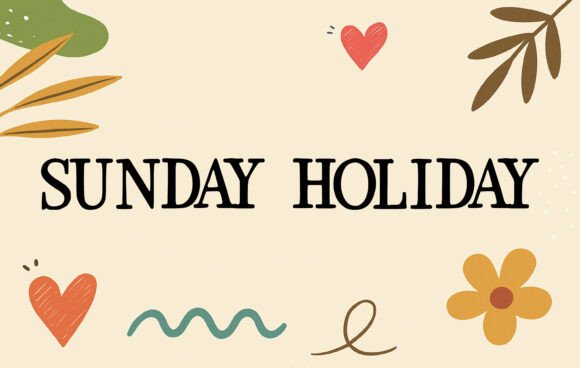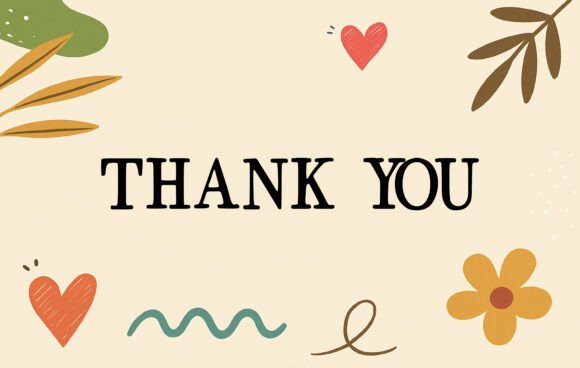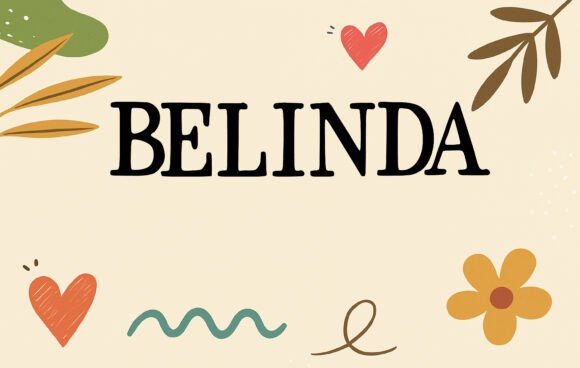
Introducing Belinda Font: Elevate Your Creative Projects with Elegance and Versatility
In the world of typography, a font can make or break a design. It’s the foundation upon which your creative ideas are built, and the right choice can elevate your project from good to exceptional. This is where Belinda Font comes into play, a meticulously crafted typeface designed to be a true favorite among designers, crafters, and anyone looking to add a touch of elegance and professionalism to their work.
Designed for Versatility and Readability
Belinda Font is engineered with versatility and readability at its core. Its design ensures that it looks great not just as a title or headline but also as body text. This dual capability makes it an incredibly useful font for a wide range of applications, from the detailed content of a magazine to the concise messages on social media, and from the grandeur of wedding invitations to the casual appeal of t-shirt designs.
A Favorite for Creative Projects
This font is designed to be a true favorite and it has the potential to take your creative ideas to the highest level. Its legibility and aesthetic appeal make it perfect for projects where you want to make a statement or convey your message with clarity and style. Whether you’re working on a branding campaign, designing cards, or brainstorming ideas for a new fashion line, Belinda Font is poised to become your go-to choice.
Ideal for Various Design Applications
The versatility of Belinda Font is one of its standout features. Here are some of the many design applications where it shines:
- Magazine Headlines: Grab the attention of your readers with bold and stylish headlines that set the tone for your content.
- T-Shirts and Apparel: Create designs that are both fashionable and legible, perfect for quotes, slogans, or branding.
- Social Media: Stand out in a crowded feed with clear, engaging text that communicates your message effectively.
- Branding: Establish a strong brand identity with a font that exudes professionalism and elegance.
- Wedding Invitations: Add a touch of sophistication and romance to your wedding invitations and stationery.
- Cards: Whether it’s a birthday, anniversary, or holiday card, Belinda Font adds a classy touch to your greetings.
Why Choose Belinda Font?
Choosing Belinda Font for your projects comes with several advantages:
- Enhanced Readability: Its clear and clean design ensures that your message is conveyed effectively, making it ideal for both digital and print media.
- Elegant Aesthetic: Adds a touch of sophistication to your designs, making them stand out.
- Versatility: Suitable for a wide range of projects, saving you time and effort in searching for different fonts for different needs.
- Creative Freedom: With Belinda Font, you have the flexibility to experiment with various design ideas, from minimalist to elaborate designs.
Belinda Font is more than just a typeface; it’s a tool that unlocks your creative potential. Its design caters to the needs of modern designers and crafters who are looking for a font that combines elegance, versatility, and readability. Whether you’re embarking on a new project or looking to refresh your brand’s identity, Belinda Font is an excellent choice that can help elevate your creative ideas to new heights. Make it your favorite, and you’ll see the difference it can make in your designs.